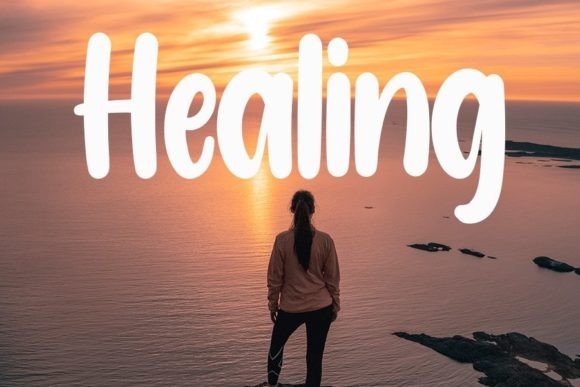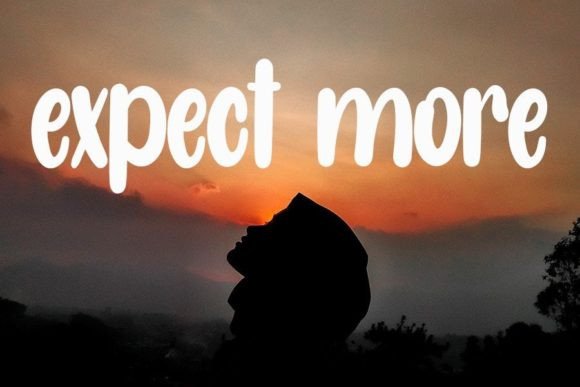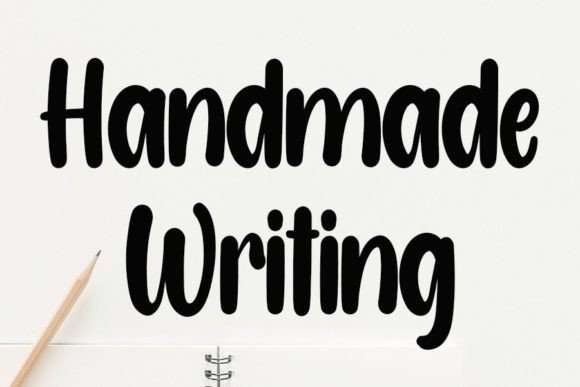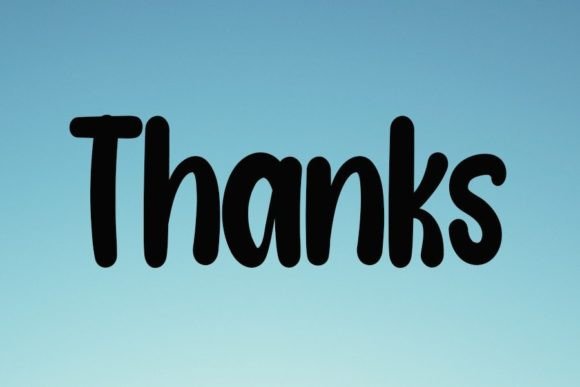
Introducing Farmhouse Font: Elevate Your Designs with Elegance and Timeless Style
Are you on the hunt for a font that exudes elegance, sophistication, and a touch of rustic charm? Look no further than Farmhouse Font, a beautiful handwritten typeface that is sure to capture your heart. With its incredibly distinct and timeless style, Farmhouse Font is the perfect addition to your design arsenal, whether you’re a seasoned designer or a crafty DIY enthusiast.
Farmhouse Font is a neat and beautiful handwritten font that boasts an elegant touch, making it ideal for a wide range of projects. From branding and packaging to invitations and crafts, this versatile font can be used to create spectacular designs that are sure to leave a lasting impression.
One of the standout features of Farmhouse Font is its unique blend of rustic charm and refined sophistication. The font’s handwritten style gives it a warm, personal feel that is reminiscent of traditional farmhouse signs and vintage advertisements. At the same time, its elegant lines and precise lettering make it perfect for more formal applications, such as logos, headings, and titles.
So, what makes Farmhouse Font so special? Here are just a few of its key features:
- Elegant and Refined: Farmhouse Font features elegant lines, precise lettering, and a sophisticated style that is perfect for formal applications.
- Handwritten Charm: The font’s handwritten style gives it a warm, personal feel that is perfect for creating unique and eye-catching designs.
- Versatile: Farmhouse Font can be used for a wide range of projects, from branding and packaging to invitations and crafts.
- Timeless Style: The font’s classic style ensures that it will remain timeless and relevant for years to come.
Uses for Farmhouse Font
So, what can you use Farmhouse Font for? The possibilities are endless! Here are a few ideas to get you started:
- Branding and Packaging: Use Farmhouse Font to create eye-catching logos, labels, and packaging that will help your brand stand out.
- Invitations and Stationery: Add a touch of elegance and sophistication to your invitations, greeting cards, and stationery with Farmhouse Font.
- Crafts and DIY Projects: Farmhouse Font is perfect for a wide range of crafts and DIY projects, from wood signs and wall art to candles and soap making.
- Digital Designs: Use Farmhouse Font to create stunning digital designs, such as social media graphics, blog headers, and website titles.
Here are a few tips for getting the most out of Farmhouse Font:
- Experiment with Sizes and Colors: Don’t be afraid to experiment with different sizes and colors to find the perfect combination for your design.
- Pair with Other Fonts: Farmhouse Font pairs well with a wide range of other fonts, so don’t be afraid to get creative and try out different combinations.
- Use for Headings and Titles: Farmhouse Font is perfect for headings and titles, where its elegant style can really shine.
In conclusion, Farmhouse Font is a beautiful and versatile handwritten font that is perfect for designers and crafters alike. With its elegant touch, timeless style, and incredibly distinct character, it’s the perfect addition to your design arsenal. Whether you’re looking to create stunning branding and packaging, eye-catching invitations and stationery, or unique crafts and DIY projects, Farmhouse Font is the perfect choice. So why wait? Fall in love with Farmhouse Font today and start creating spectacular designs that will leave a lasting impression!